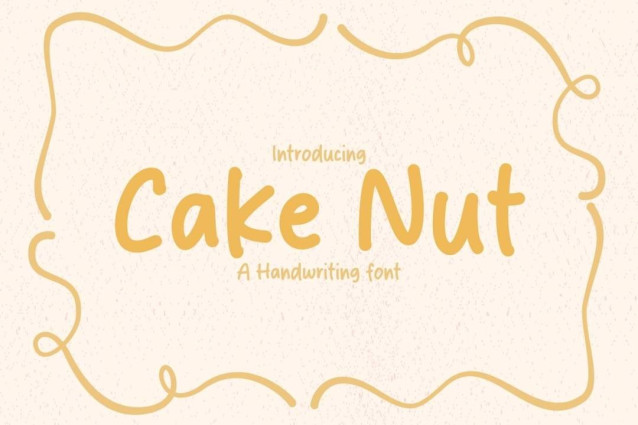
Cake Nut Font
Cake Nut Font is a simple and friendly handwritten font. Its natural and unique style makes it incredibly fitting to a large pool of designs. The only limit is your imagination!